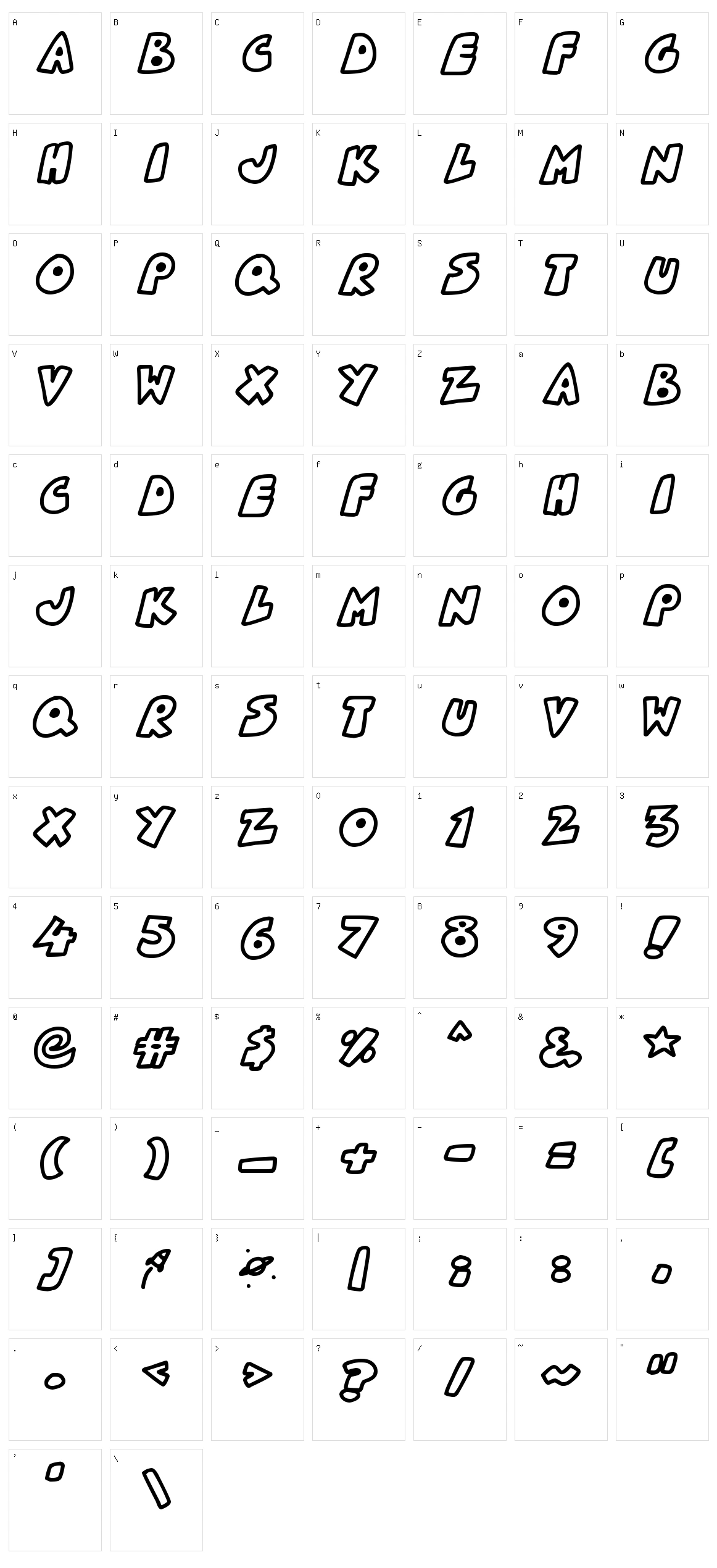
The free font Planetoid X is carefully designed by Hawtpixel, showcasing a thoughtful balance of creativity and usability and falls under the Cartoon font style. When you download the ZIP file, it contains only 111.08 KB of font files, making it lightweight and quick to download. Please review the license details below to understand permitted usage and distribution rights. If license information is not available, we recommend using this font for personal projects only or contacting the author directly for commercial usage permissions.